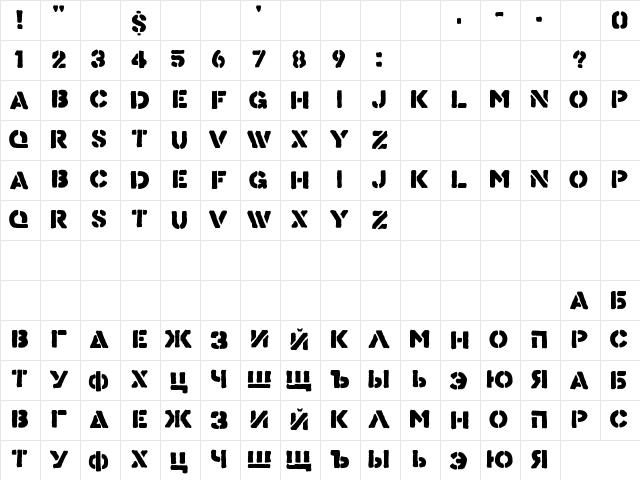
Know Your Product Regular
Design Context for Know Your Product
Know Your Product is a composed and adaptable typeface that performs quietly and consistently across a wide range of design contexts.
Pro Tip: Use Know Your Product in both headline and body roles to test its range before committing to a single application.